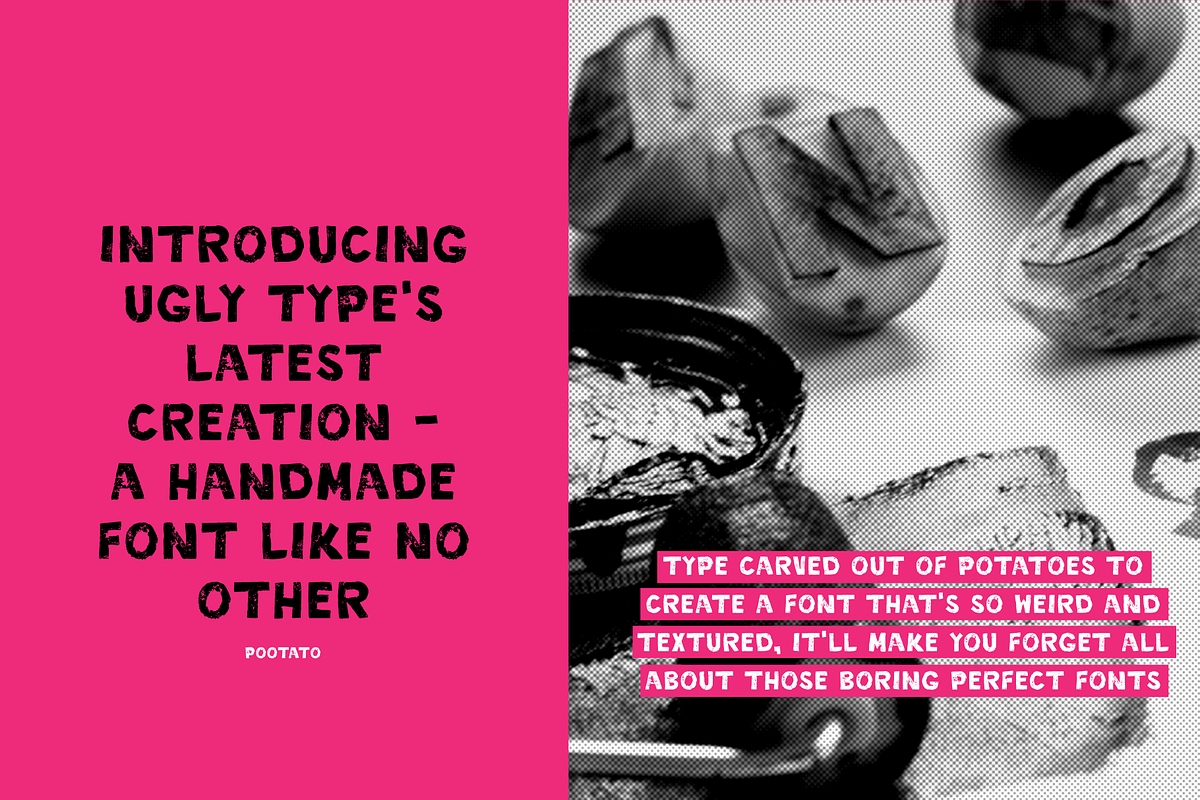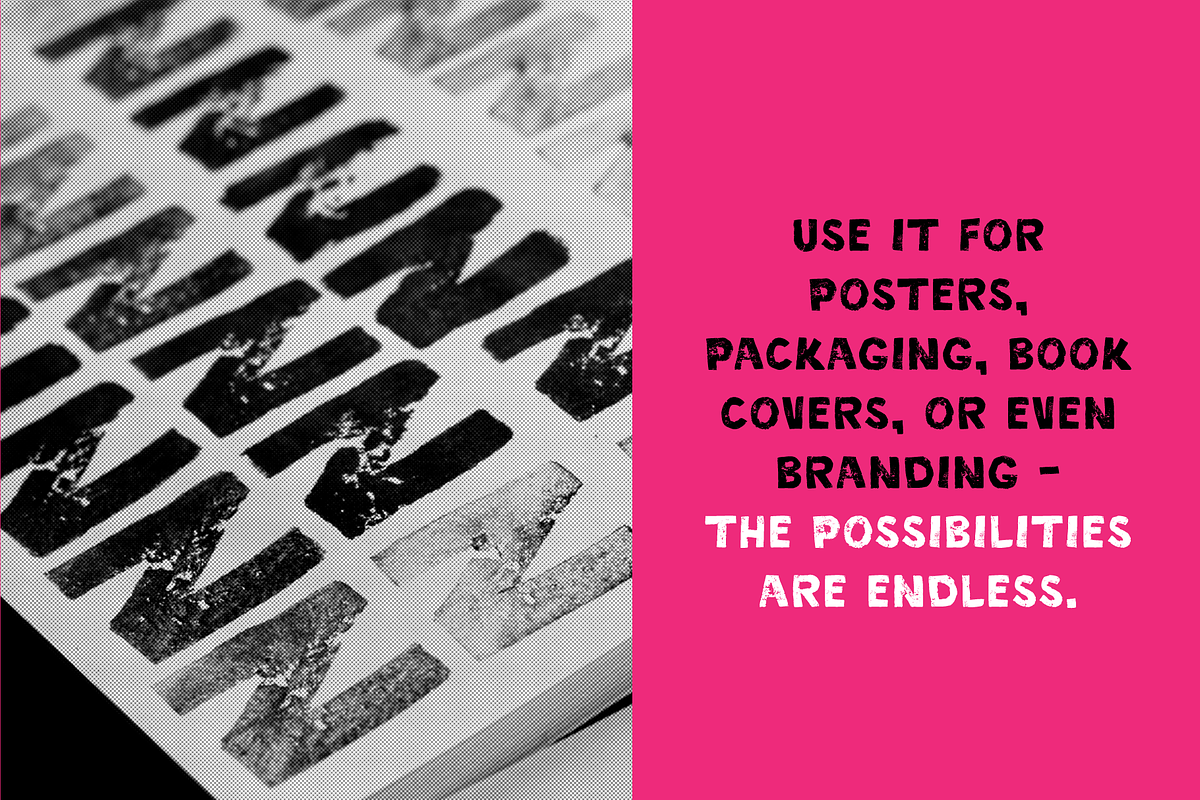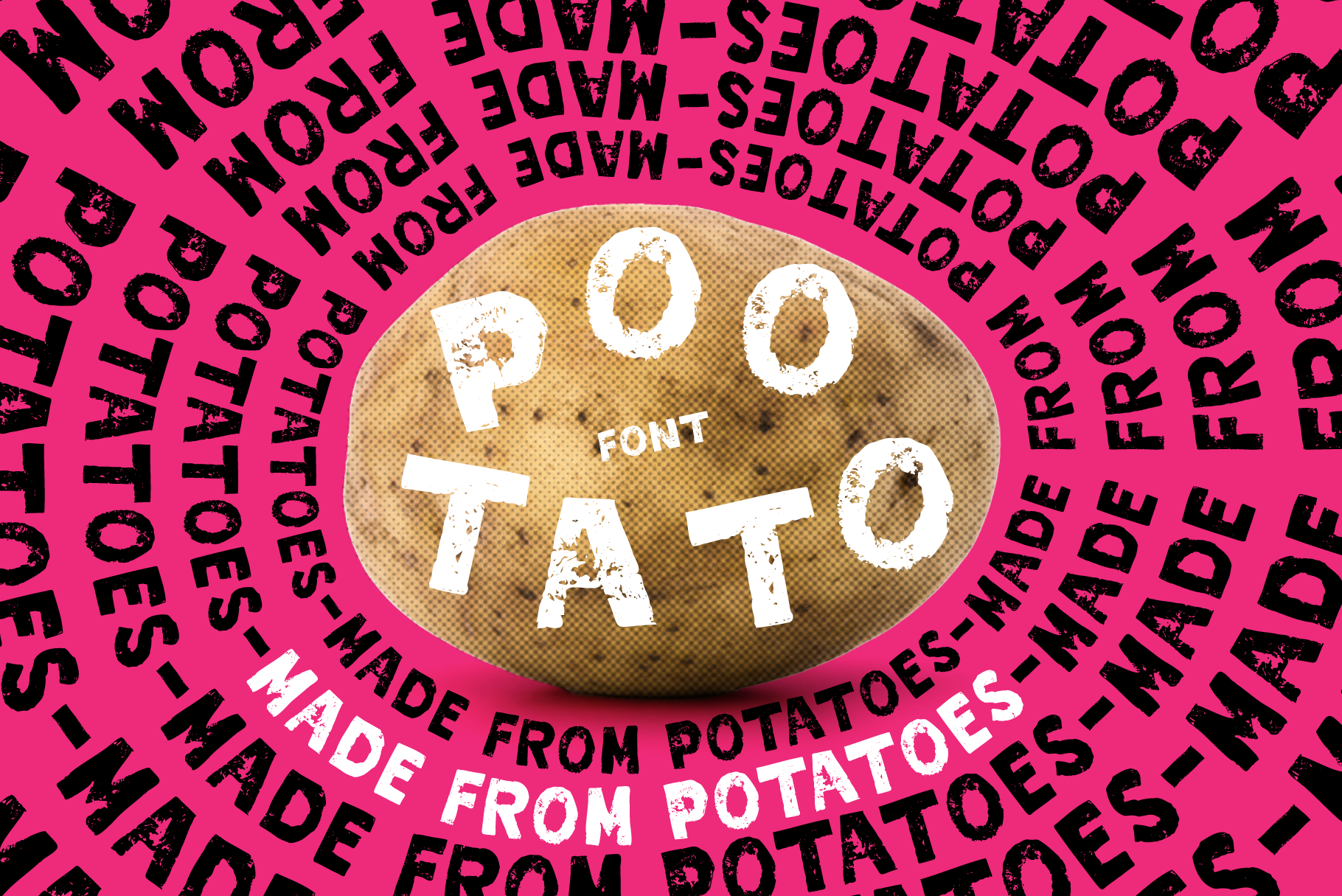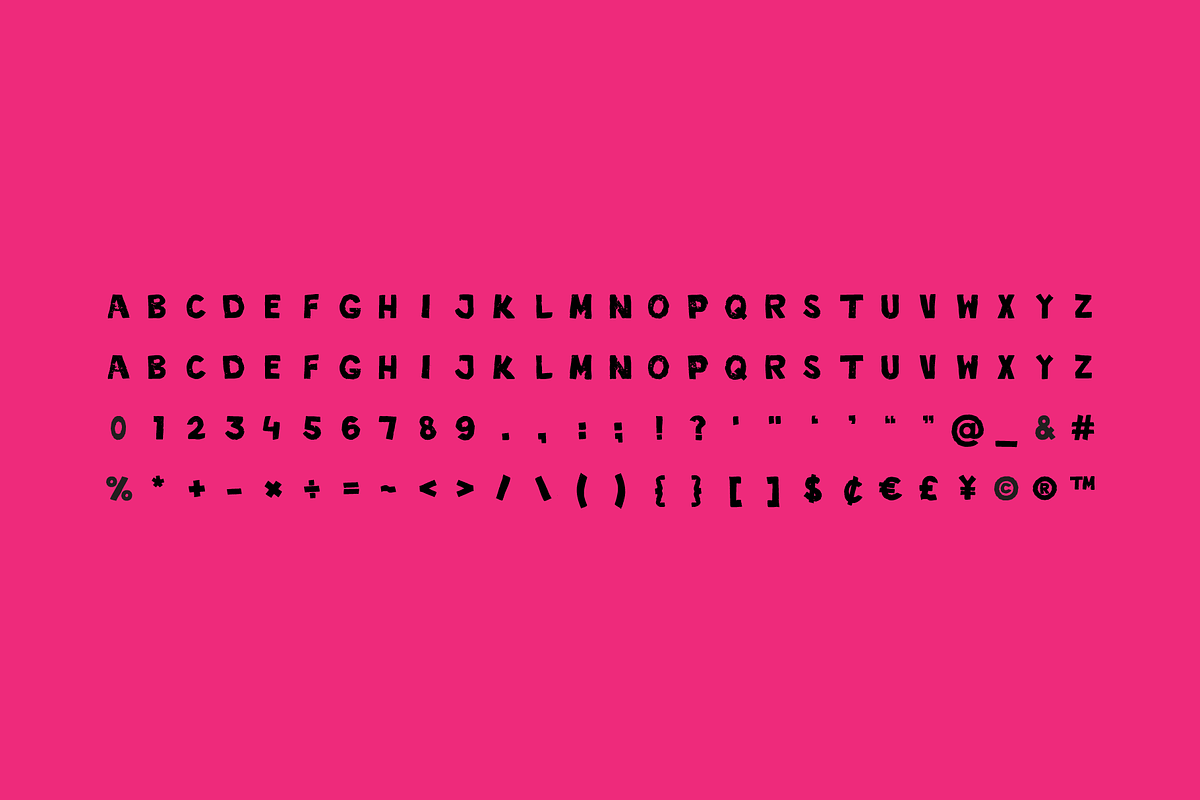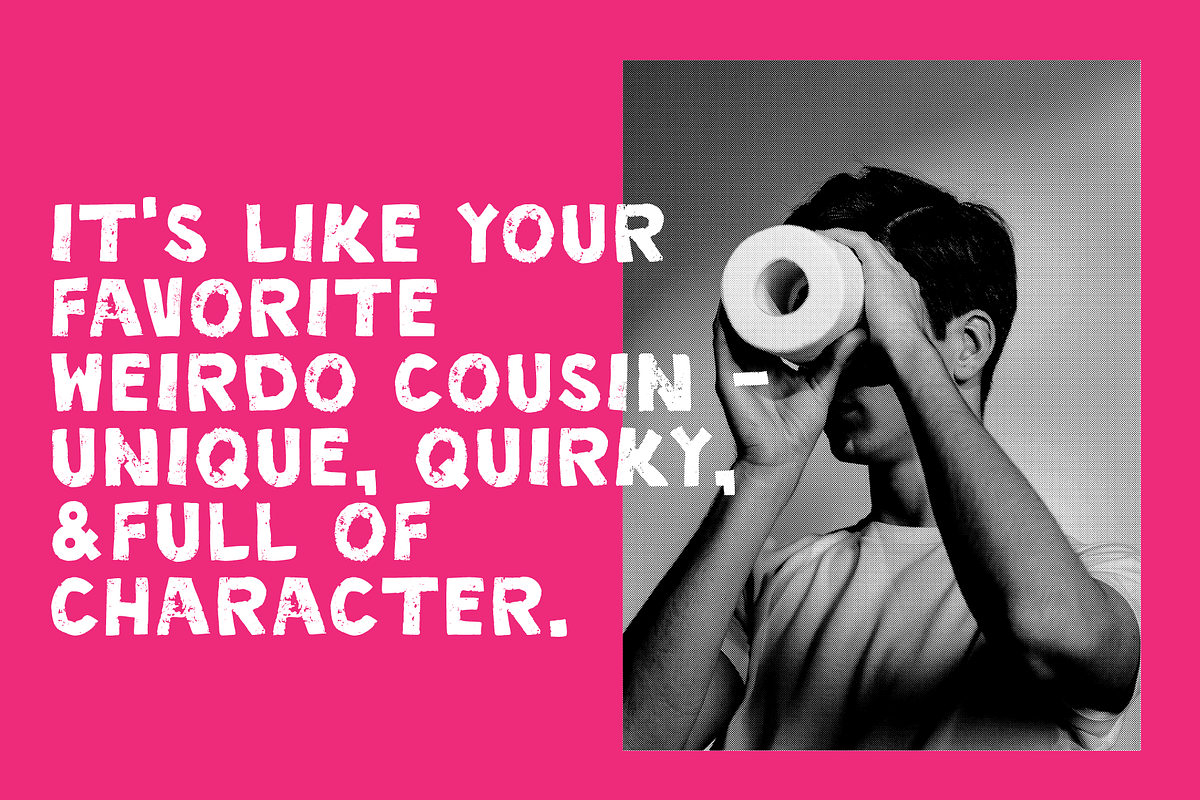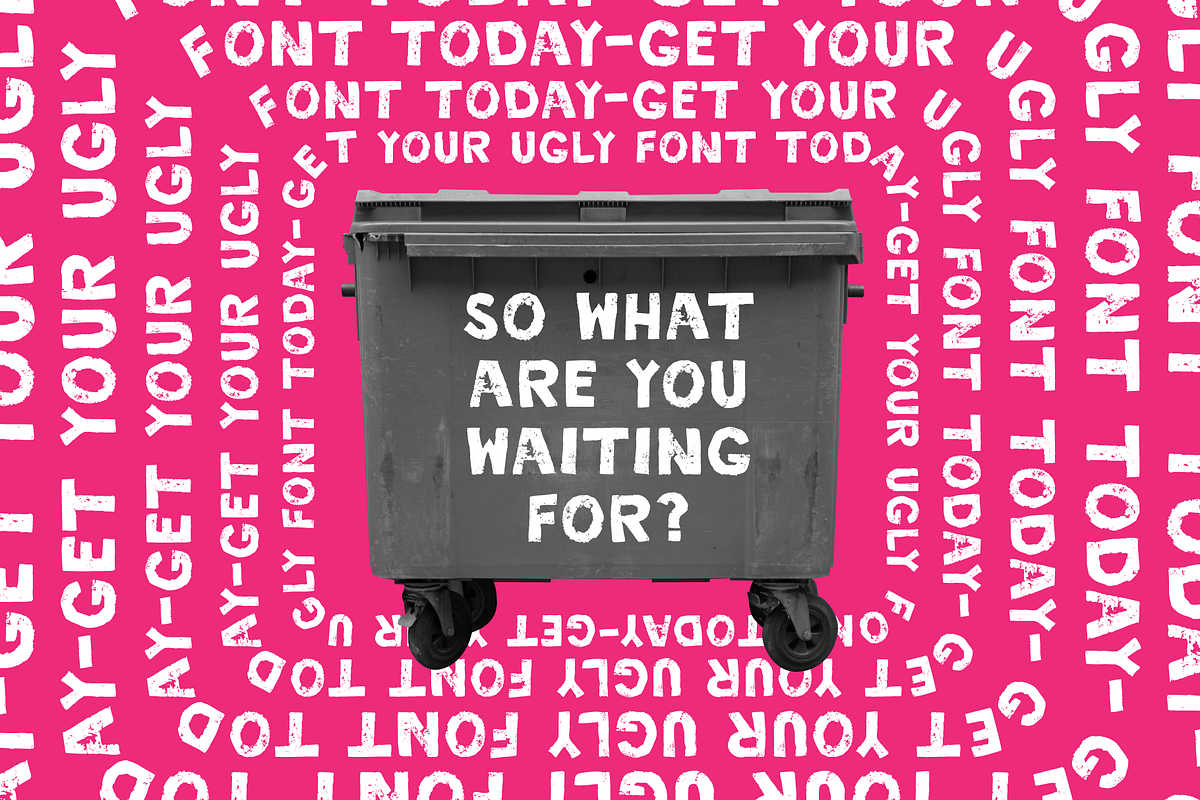
Pootato font - made from potatoes
Introducing Ugly Type's latest creation - a handmade font like no other. We carved out potato stamps to create a font that's so weird and textured, it'll make you forget all about those boring, cookie-cutter fonts.